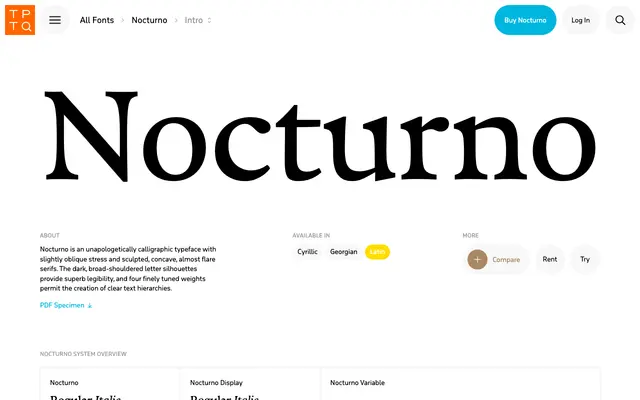
Nocturno
A text and display serif system from Typotheque offered in four weights with matching italics, a separate display cut and a variable font.
The family divides into a text subfamily and a display subfamily, each running Regular, Book, Medium and Bold with italics throughout. The optical split allows tighter, more robust spacing at text sizes and looser, more refined spacing for headlines, a distinction that suits editorial and publishing contexts. A variable font is also available, covering the weight axis across the full system.
Nocturno is a text serif with a Text and Display optical pairing, suggesting a transitional or contemporary serif design intended for sustained reading at smaller sizes and headline use at larger ones.